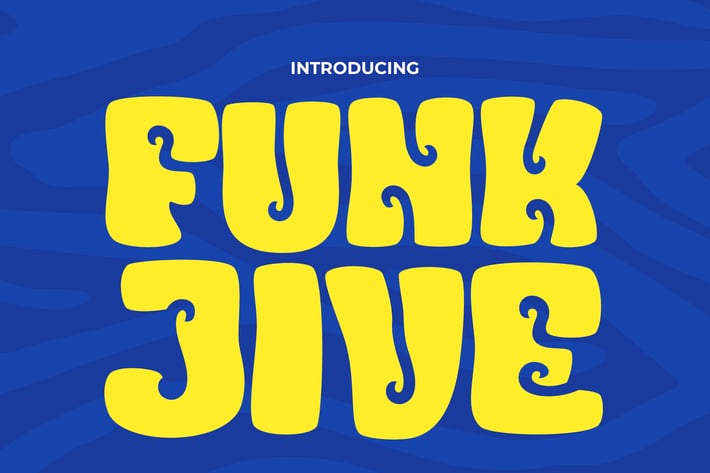
Funk Jive - Vintage Font
Funk Jive is a vibrant vintage font that embodies the spirit of the 70s and 80s with a groovy retro wave flair. Perfect for projects that evoke the nostalgic vibes of these dynamic decades, Funk Jive adds an element of retro cool to logos, enhancing brand identities with its old-school charm. Its unique style lends itself beautifully to quotes that resonate with energy and invitations that promise a fun and memorable experience. Funk Jive also excels in crafting eye-catching posters and heartfelt greetings, making every piece feel like a blast from the past. Whether used for packaging, branding, or book covers, this font ensures that every design stands out with vintage authenticity. Additionally, it is ideal for event promotions, headlines, and advertising campaigns that require a distinctive and engaging retro aesthetic.